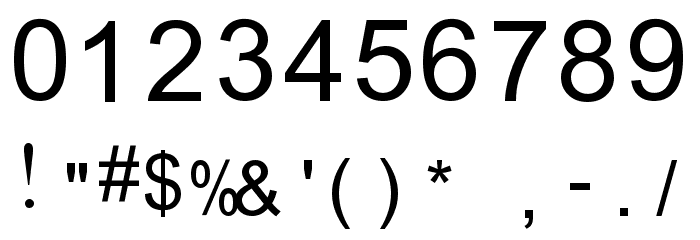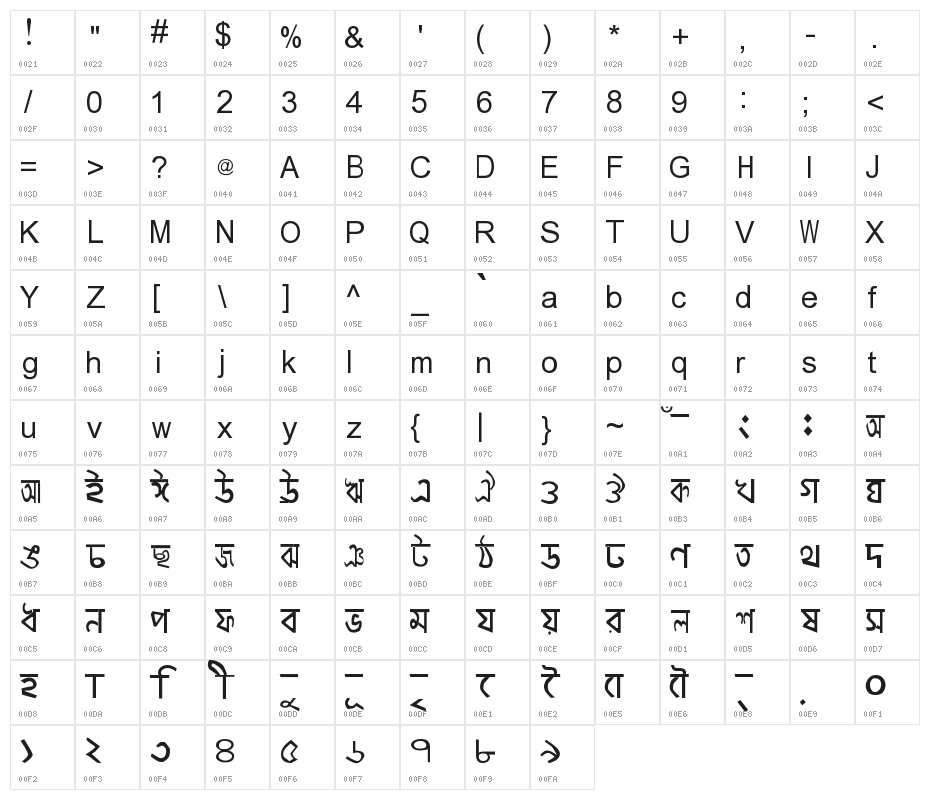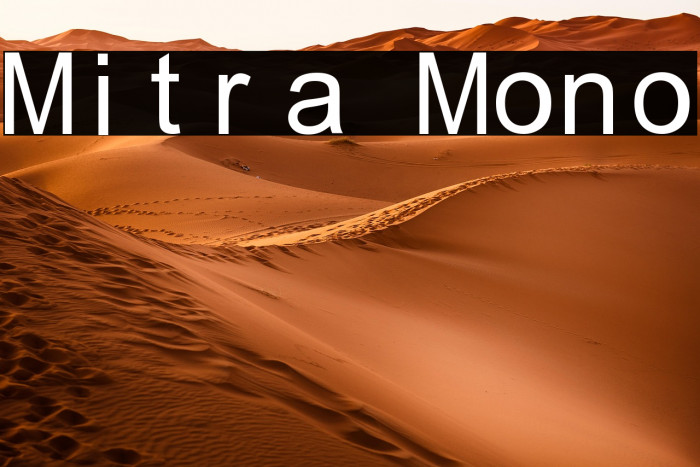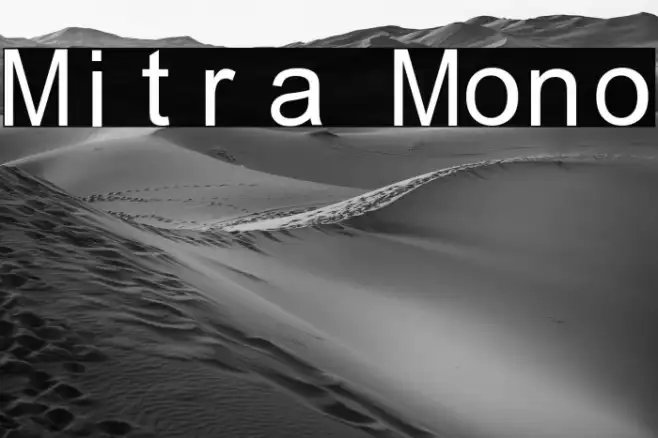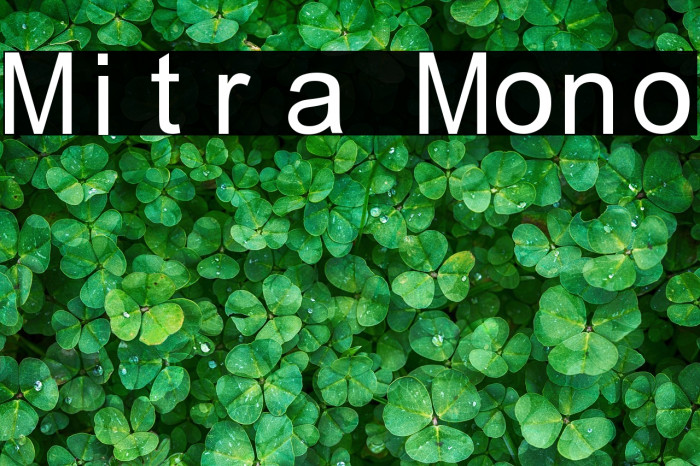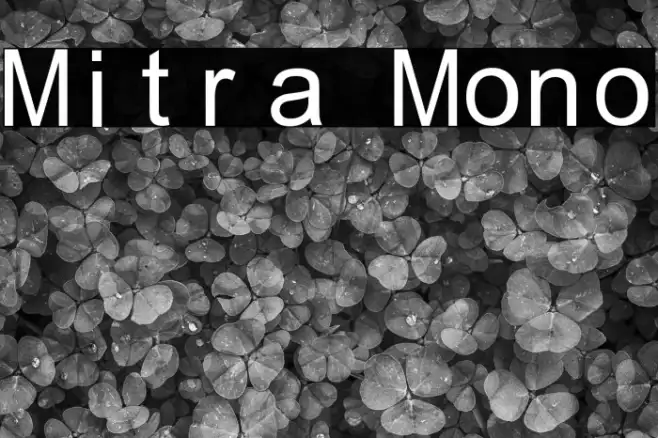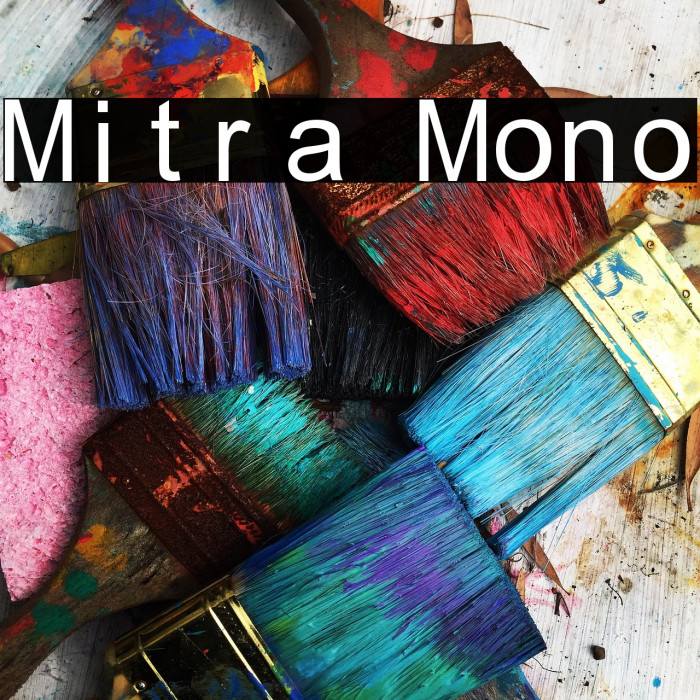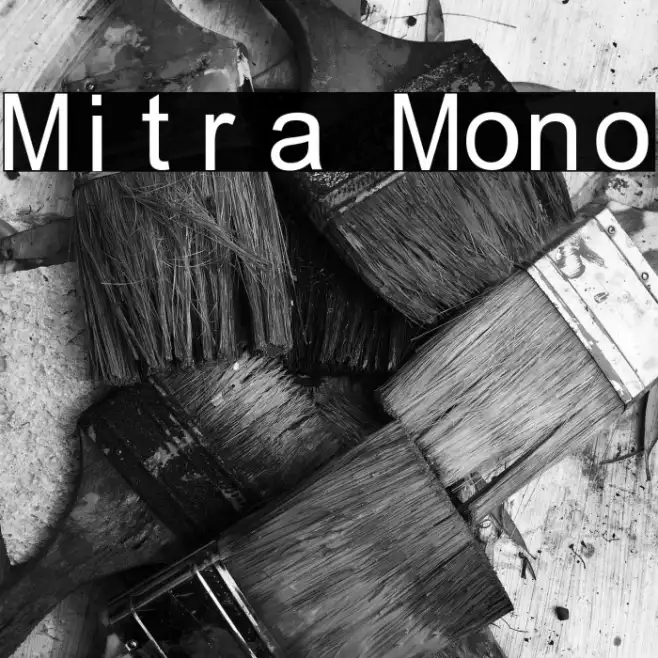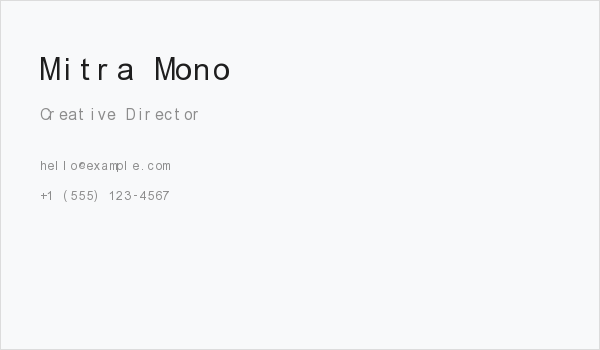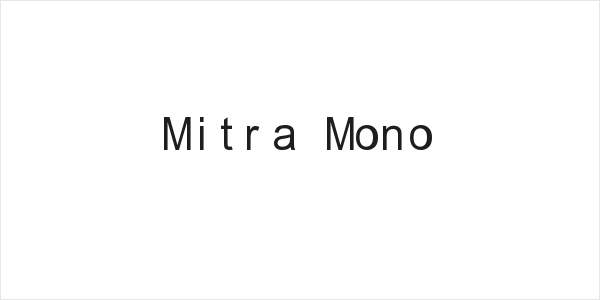
Mitra Mono Font
Mitra Mono Description
This font features a clean, monospaced design with consistent character width, making it ideal for coding and technical documents. The characters are well-defined with a modern aesthetic, emphasizing clarity and readability. The uppercase letters are bold and structured, while the lowercase letters maintain a uniform appearance. Numbers are clear and distinct, ensuring legibility in data-heavy contexts. Special characters are straightforward, supporting a wide range of uses. The overall style is minimalistic, focusing on function over embellishment.
| Use Case | Coding, Technical documents, Data entry |
| Proposed Projects | Perfect for coding environments, technical documentation, data entry forms, and any project requiring precise alignment. |